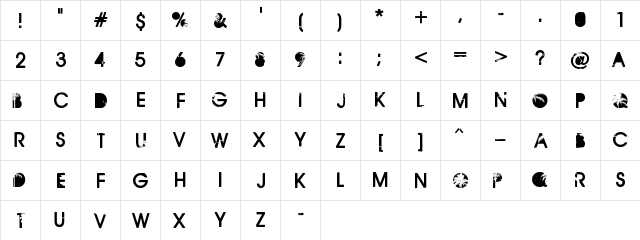
California by Dirt2 Regular
Design Context for California by Dirt2 Typeface
California by Dirt2 takes a measured approach to typography — its balanced proportions and neutral character make it a reliable workhorse for both digital and print work.
Pro Tip: Use California by Dirt2 in both headline and body roles to test its range before committing to a single application.